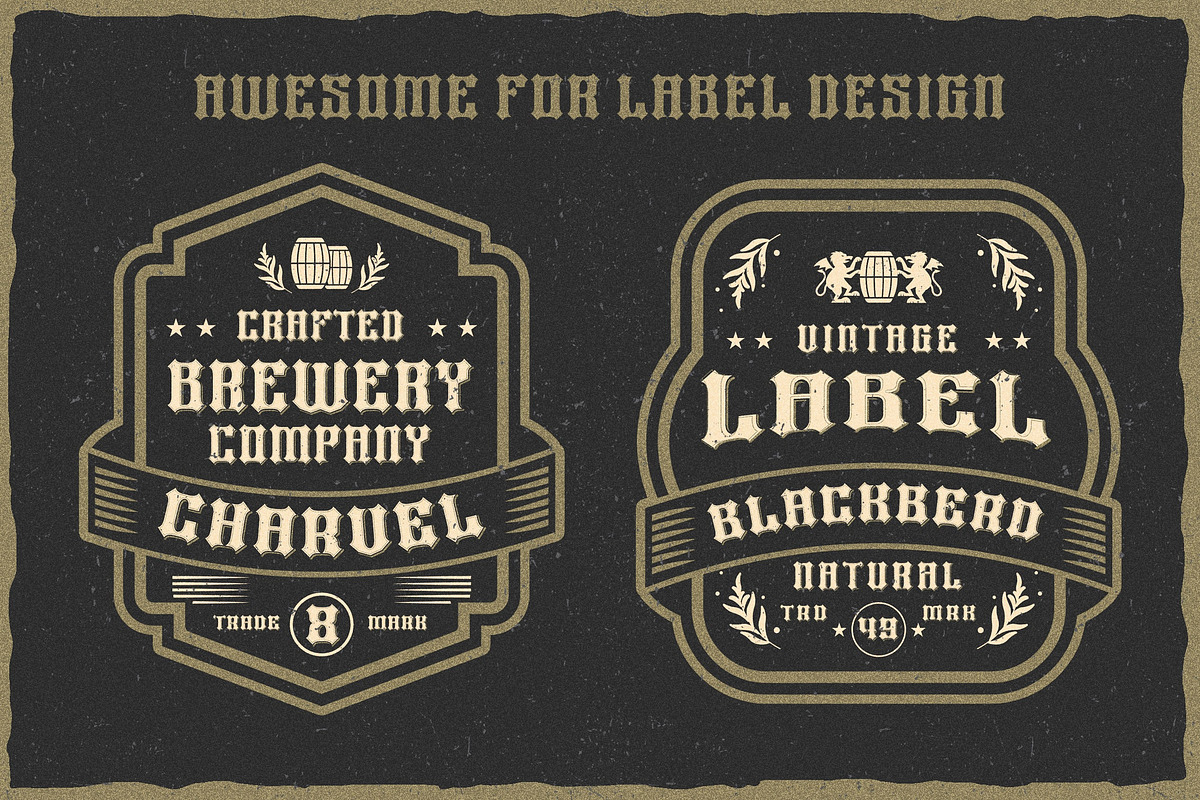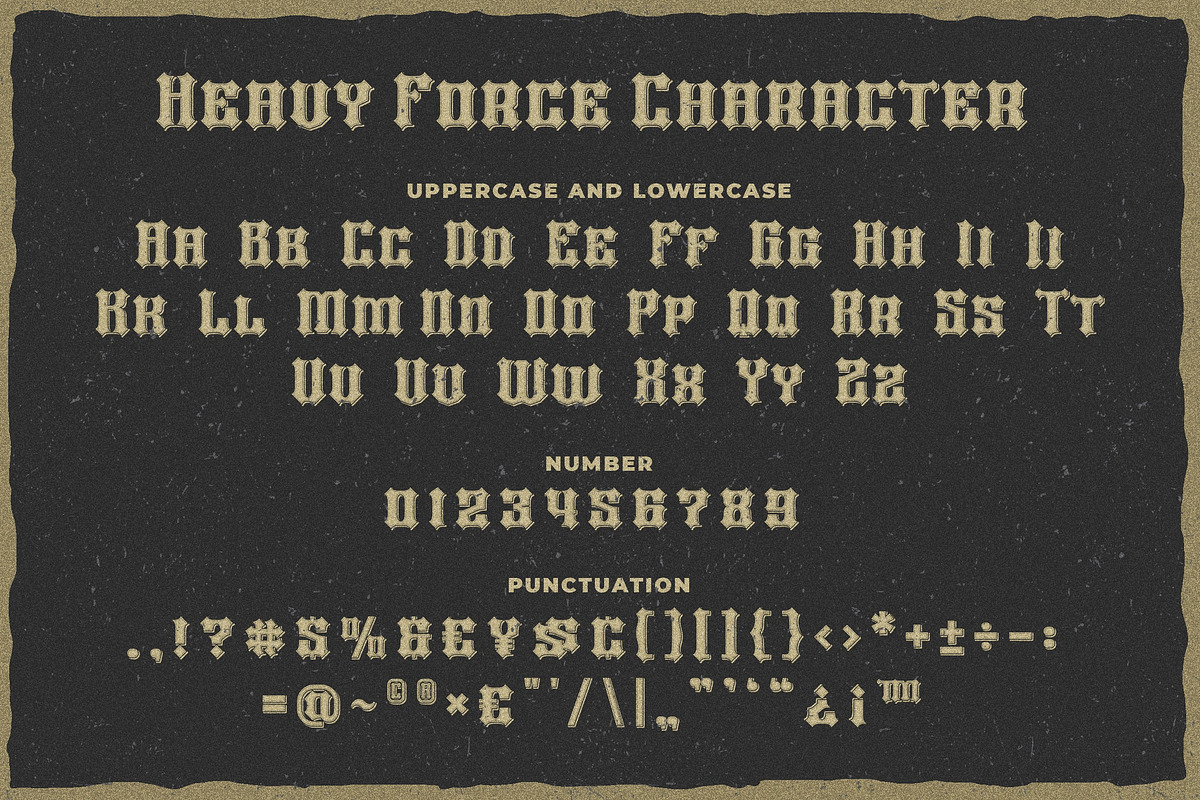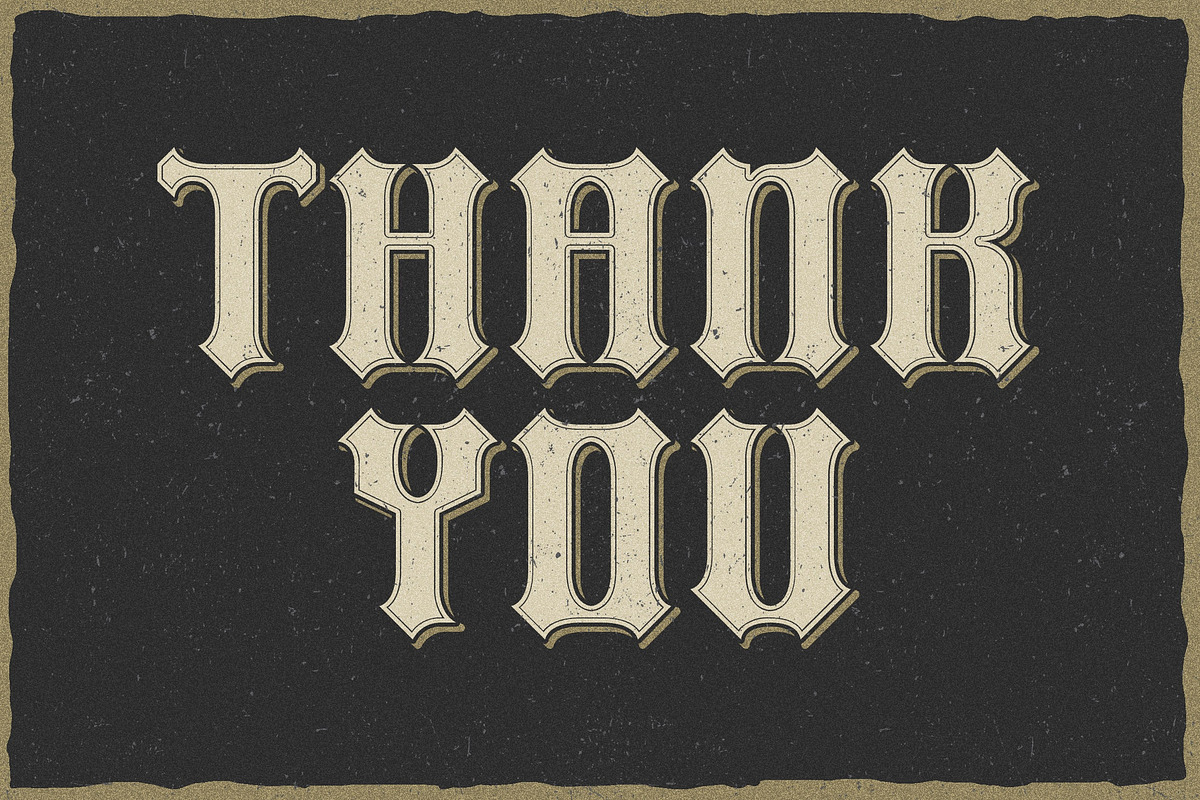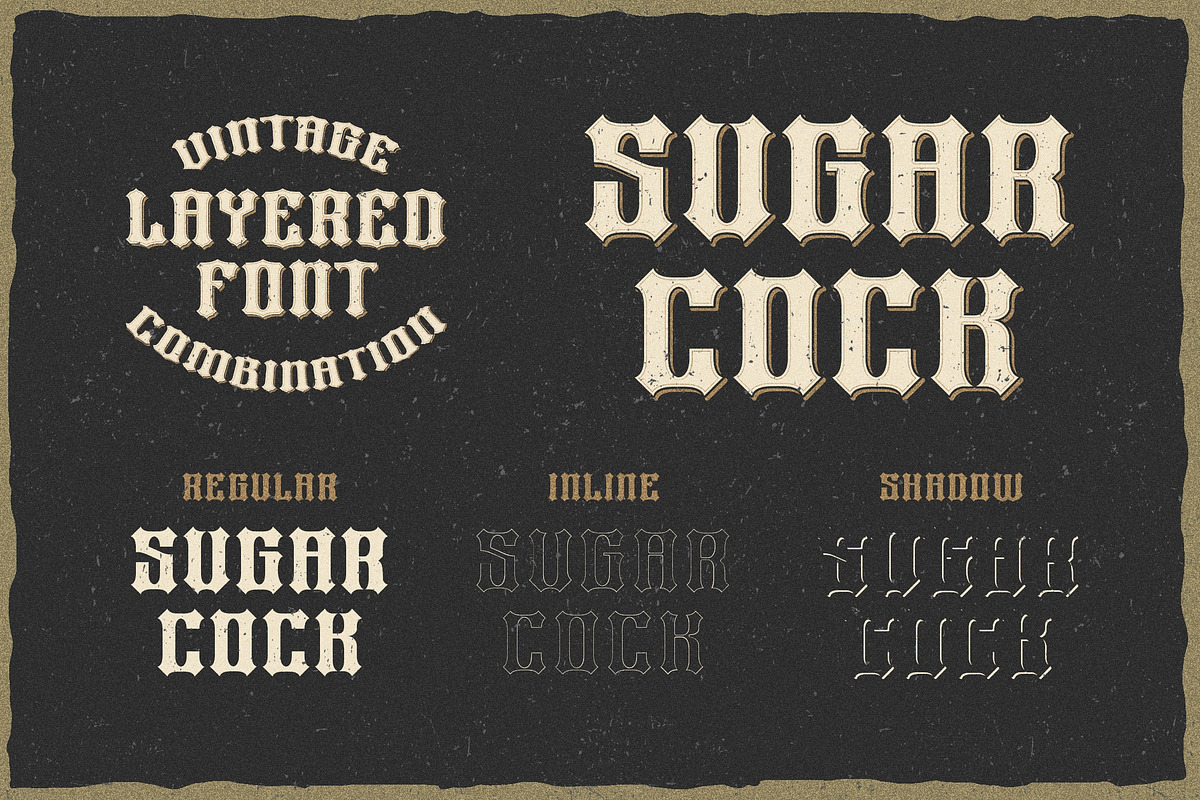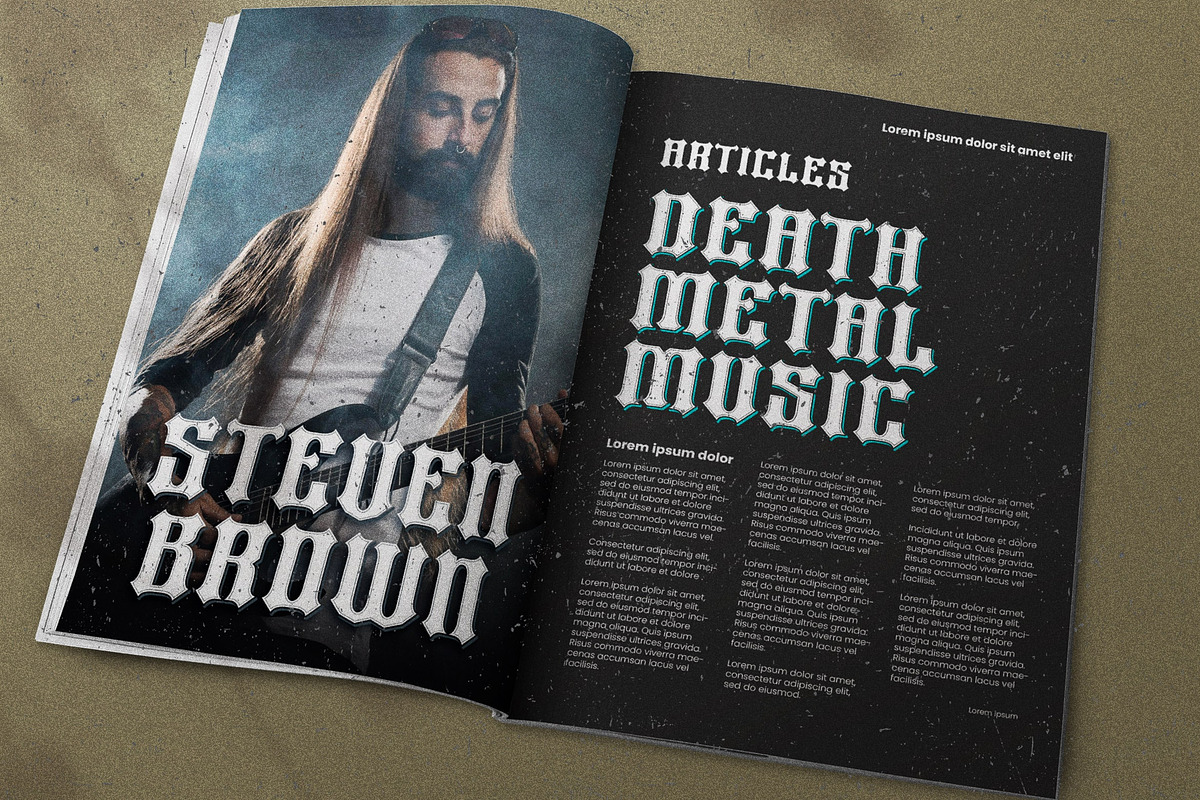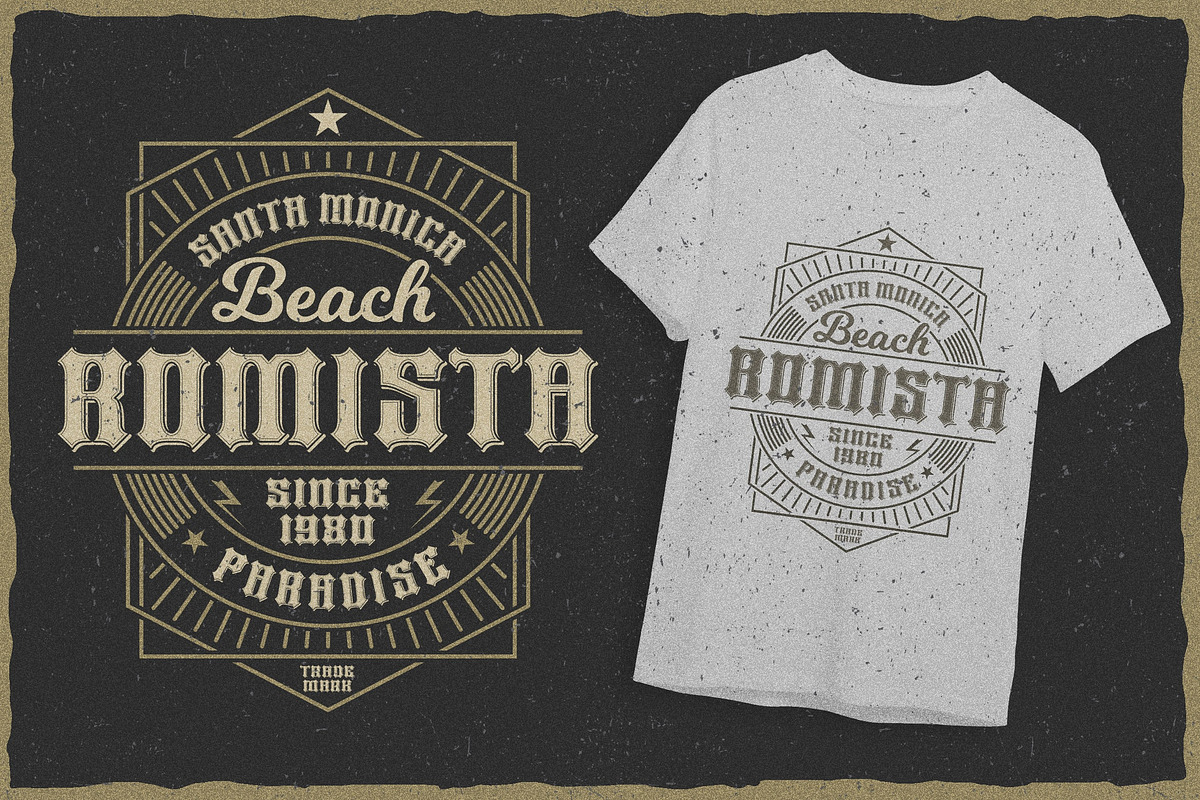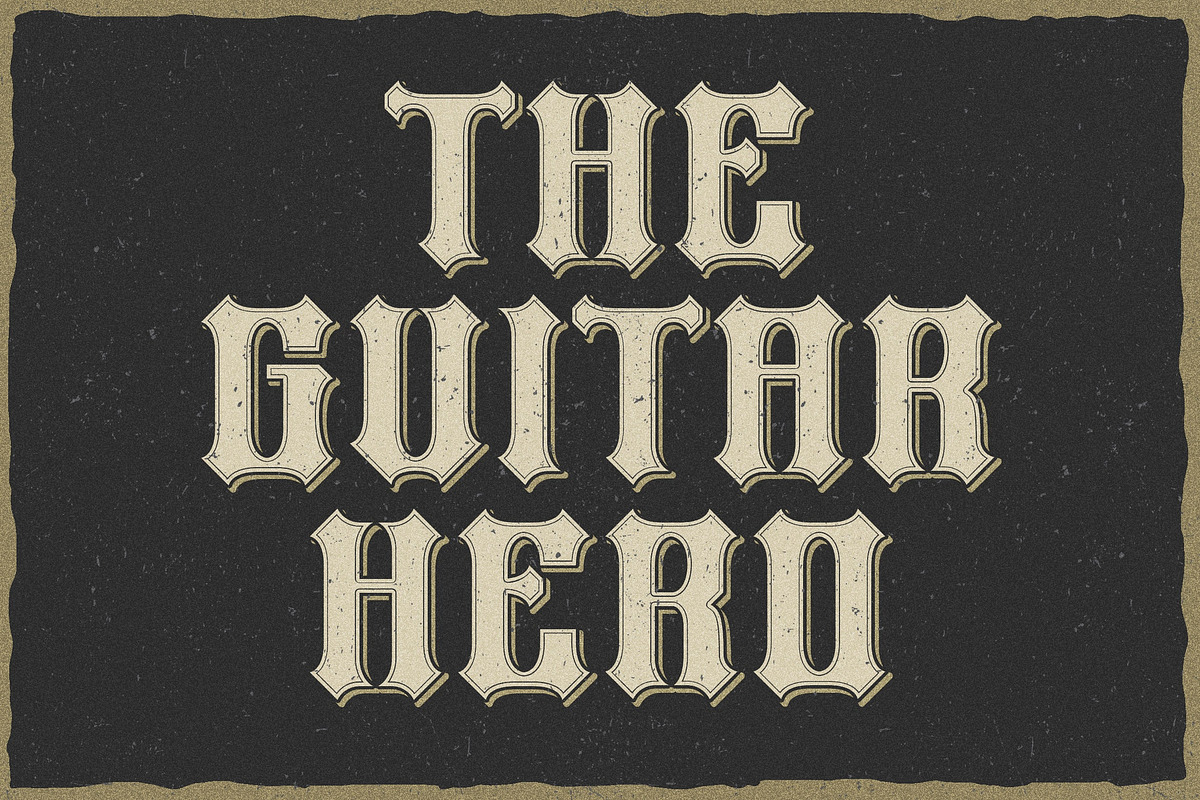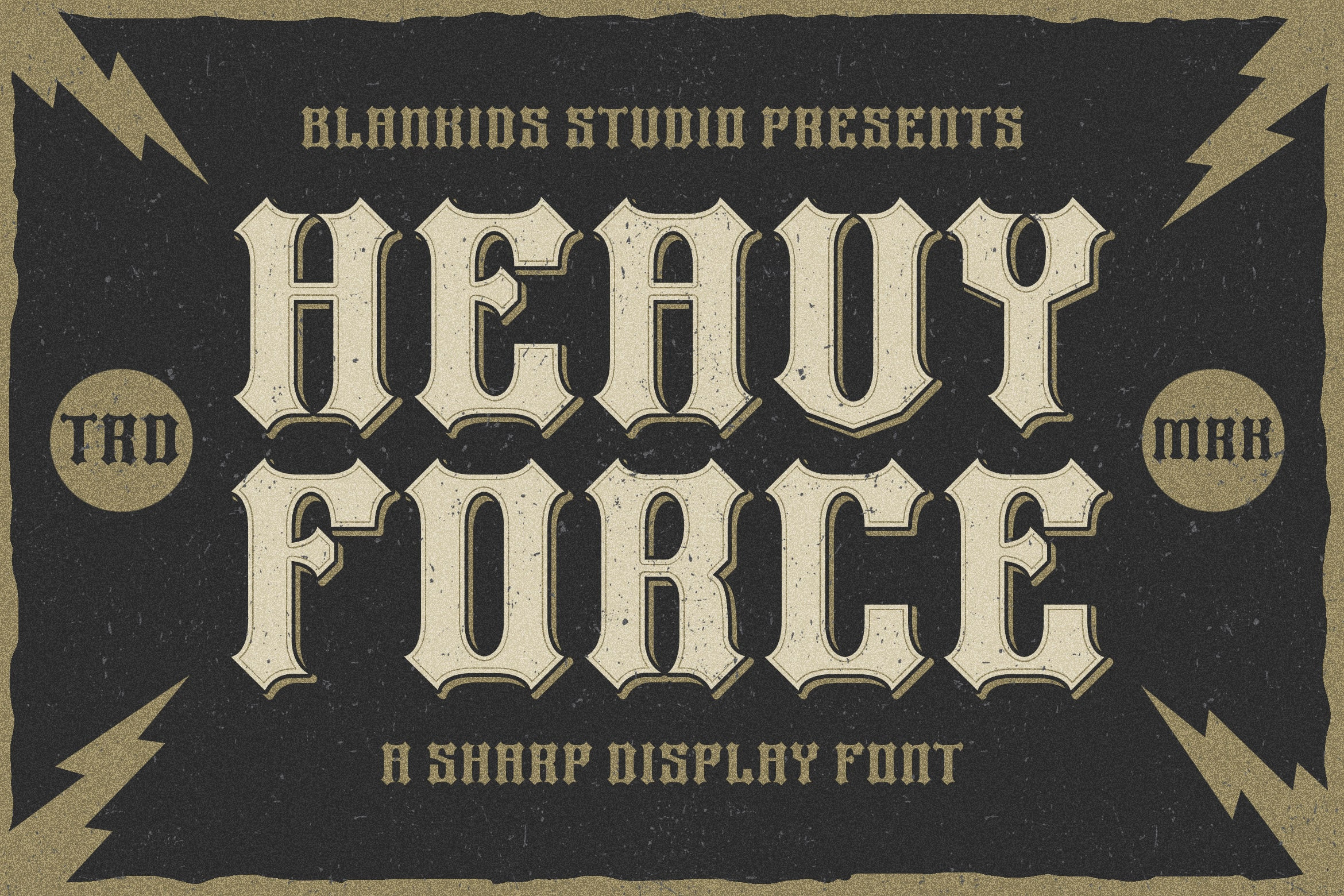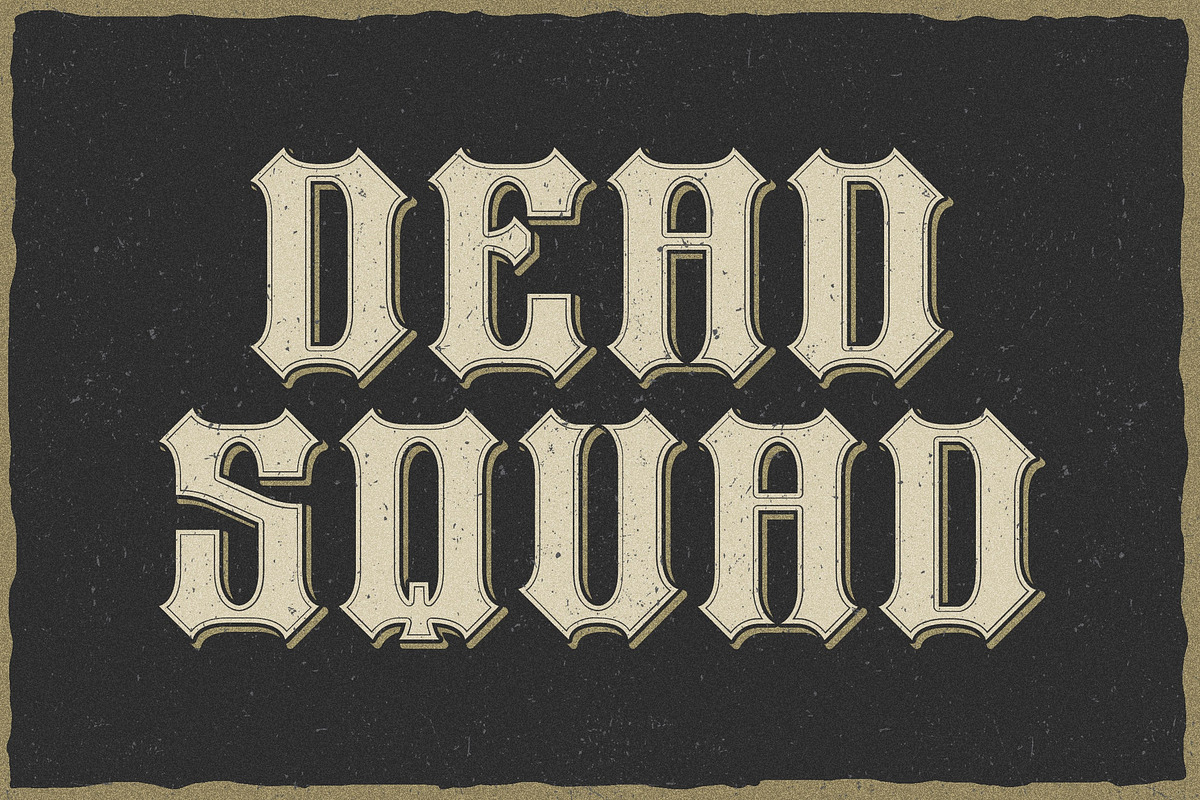
Heavy Force a Sharp Display Font
Are you looking for a vintage layering display font? Do you want of creating Something that stand out and inspire creativity, imagination, and endless fun? Wait no more, we will give you the best choice.
Heavy Force a Sharp Display Font
Heavy Force a Sharp Display Font, Inspiring from old signage typography. This font is perfect for a design that makes it more attractive and playful. made with a very good level of aesthetics making this font suitable for book cover, poster, packging, merchandise, logotype and much more.
Heavy Force font includes Multilingual Support, among others :
Afrikaans, Albanian, Asu, Basque, Bemba, Bena, Breton, Catalan, Chiga, Cornish, Danish, Dutch, English, Estonian, Faroese, Filipino, Finnish, French, Friulian, Galician, German, Gusii, Indonesian, Irish, Italian, Kabuverdianu, Kalenjin, Kinyarwanda, Luo, Luxembourgish, Luyia, Machame, Makhuwa, Meetto, Makonde, Malagasy, Manx, Morisyen, North Ndebele, Norwegian Bokmål, Norwegian Nynorsk, Nyankole, Oromo, Portuguese, Quechua, Romansh, Rombo, Rundi, Rwa, Samburu, Sango, Sangu, Scottish Gaelic, Sena, Shambala, Shona, Soga, Somali, Spanish, Swahili, Swedish, Swiss German, Taita, Teso, Uzbek (Latin), Volapük, Vunjo, Zulu